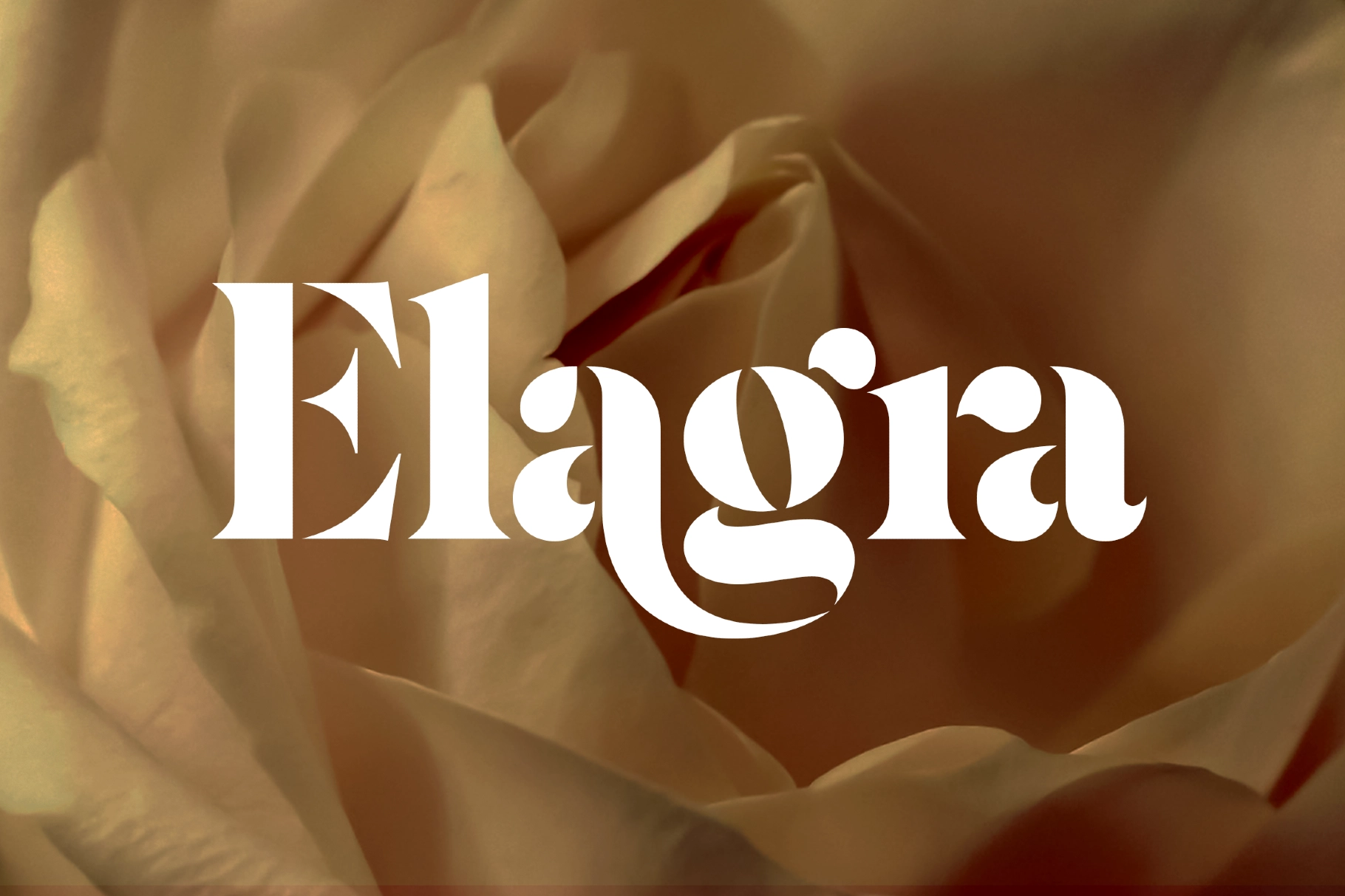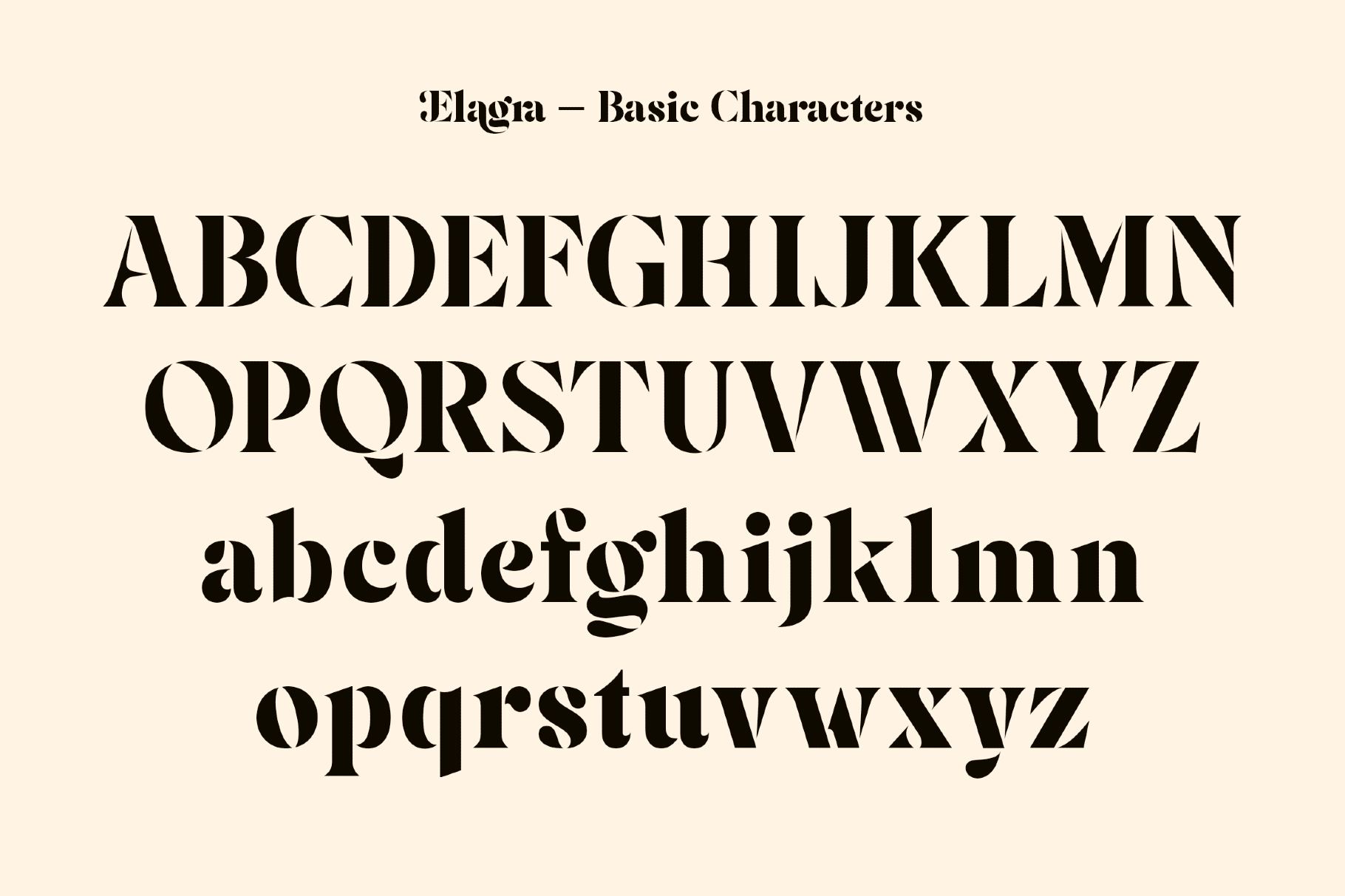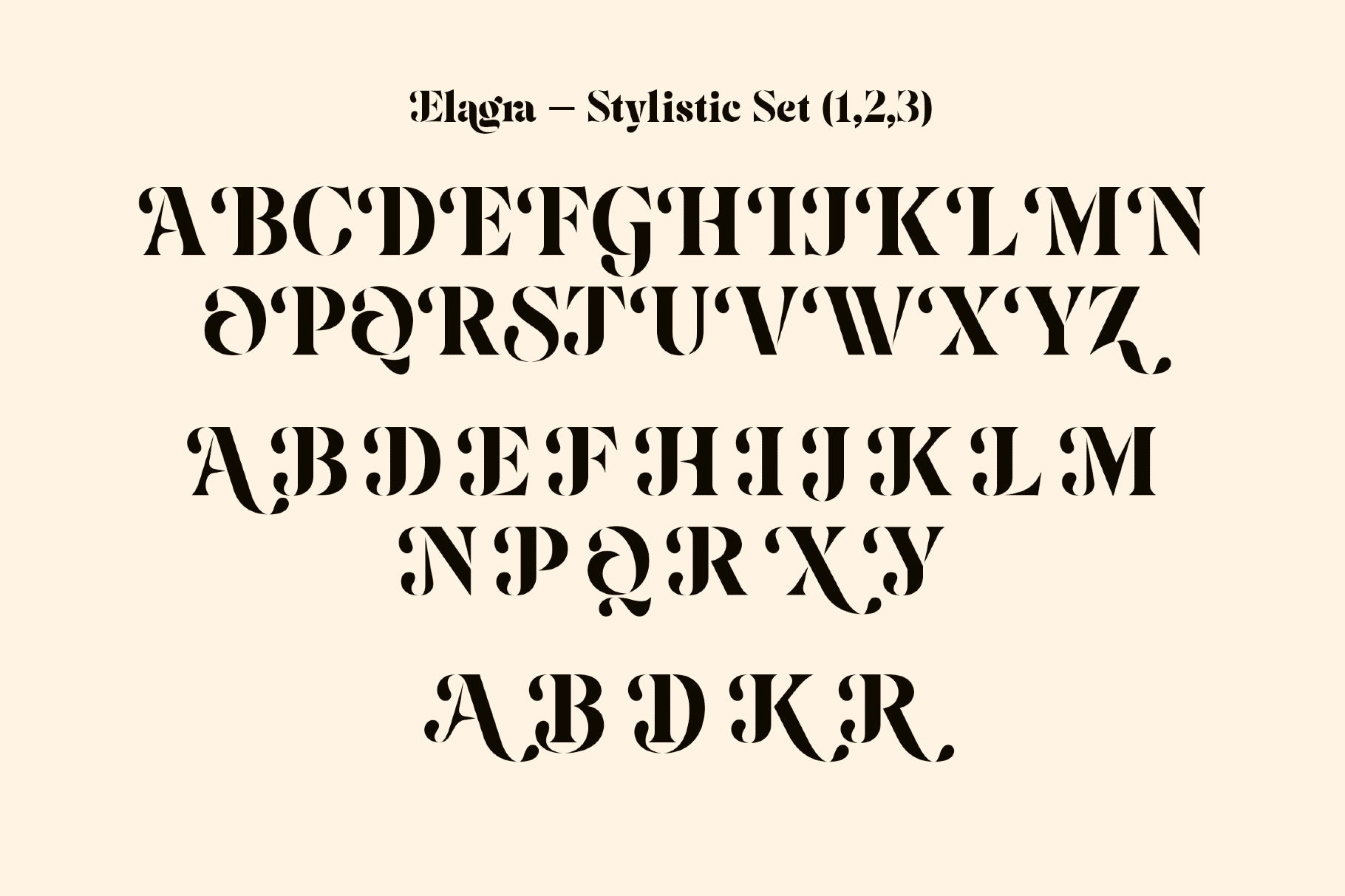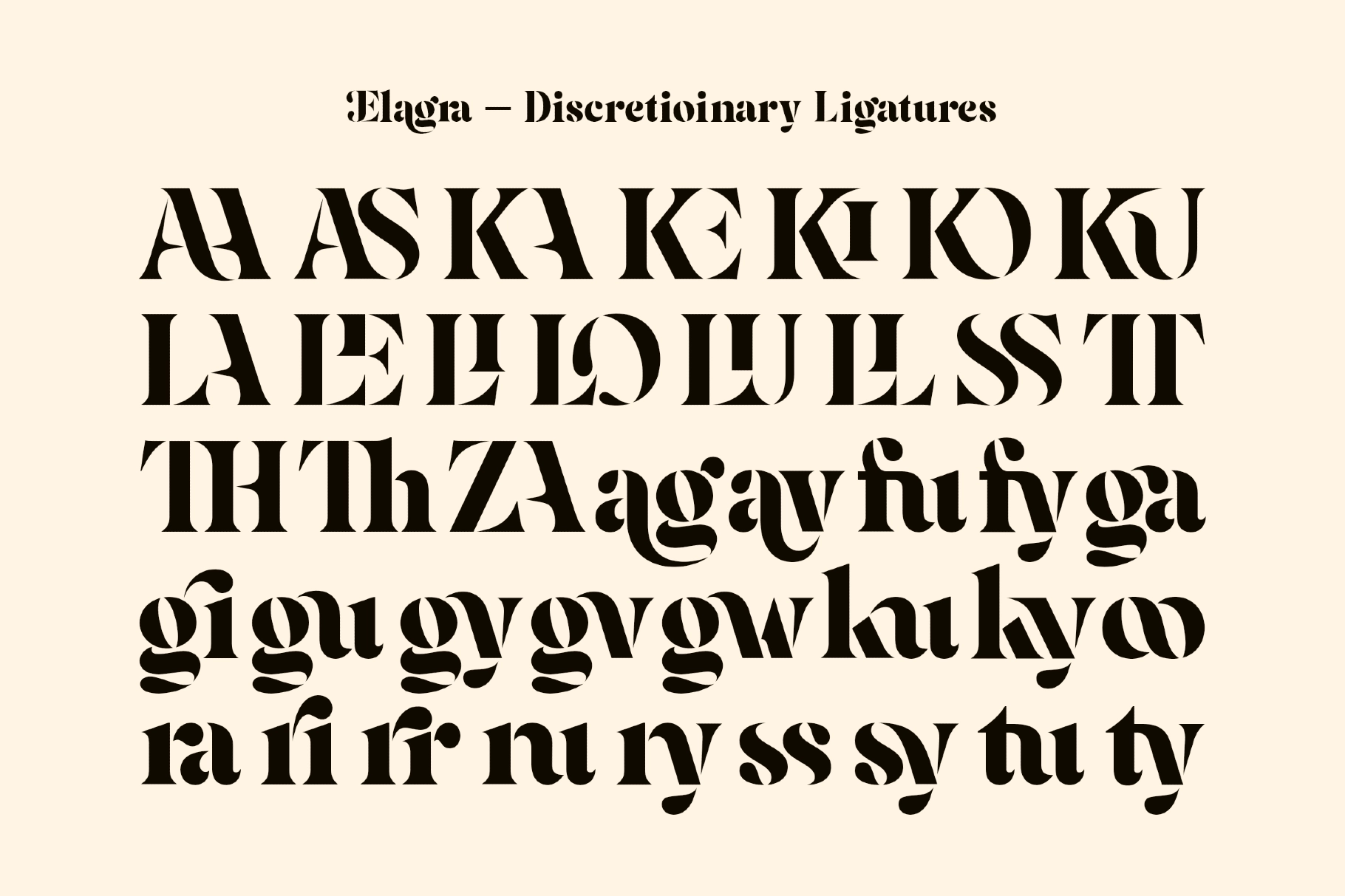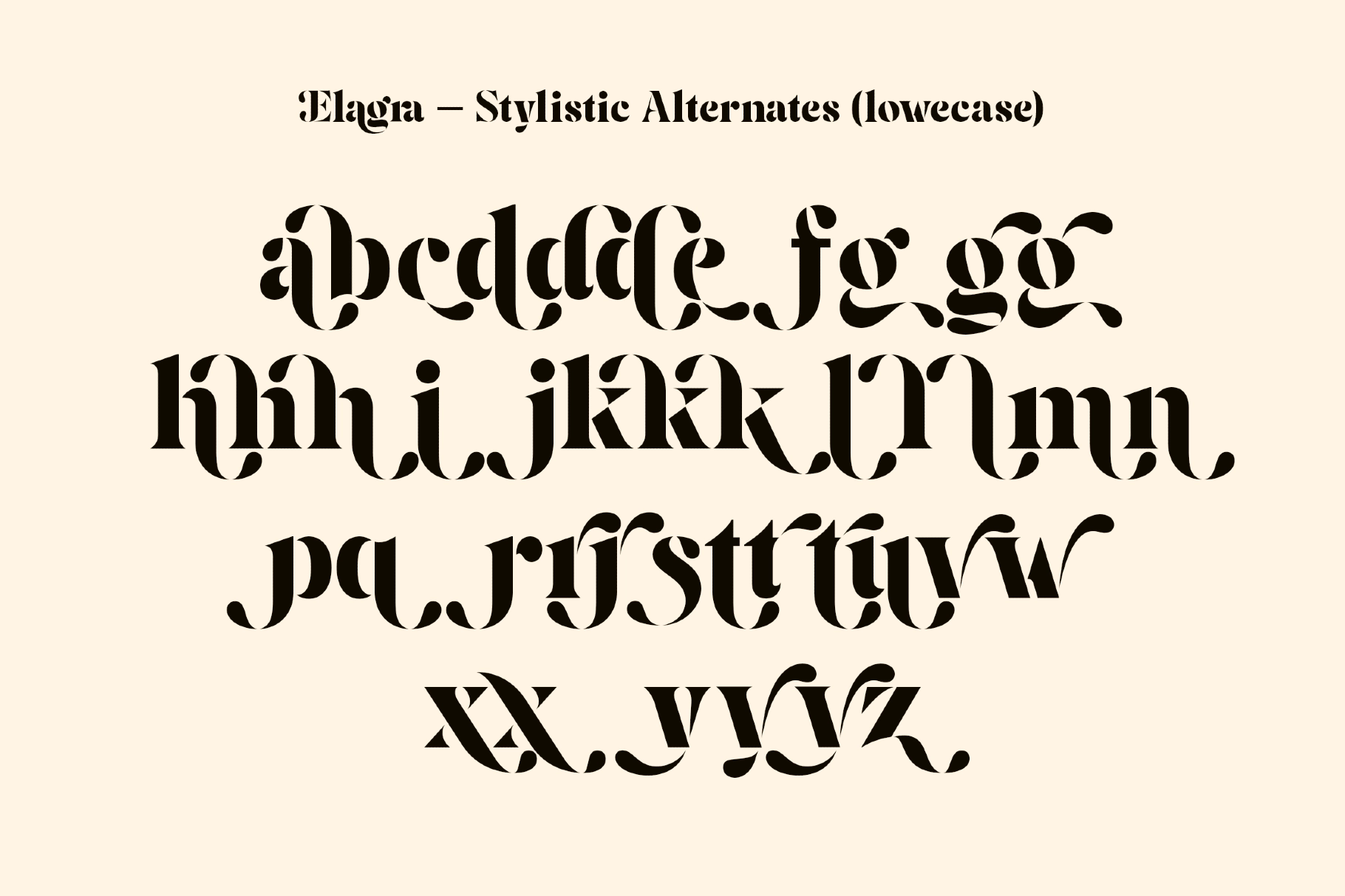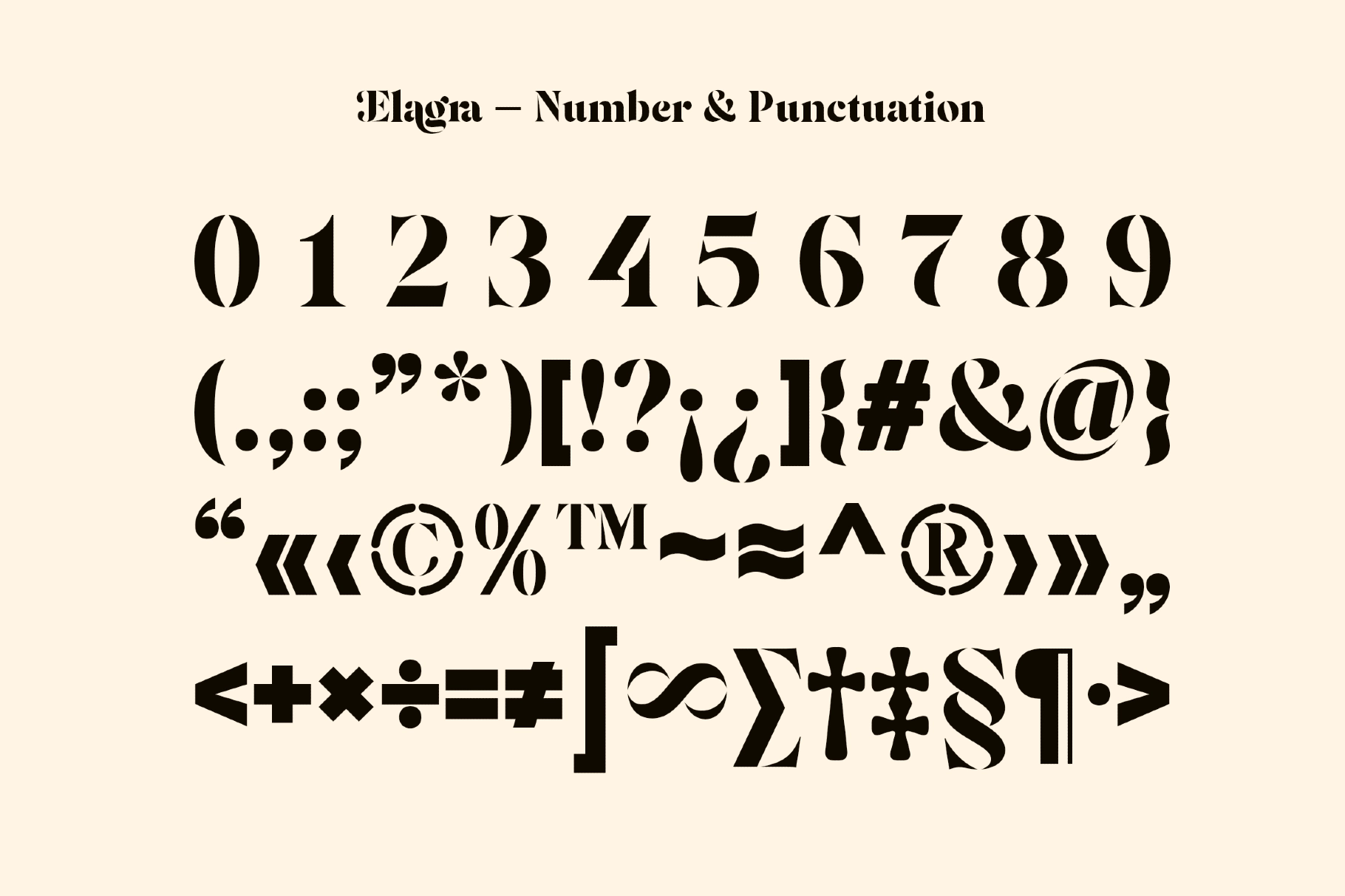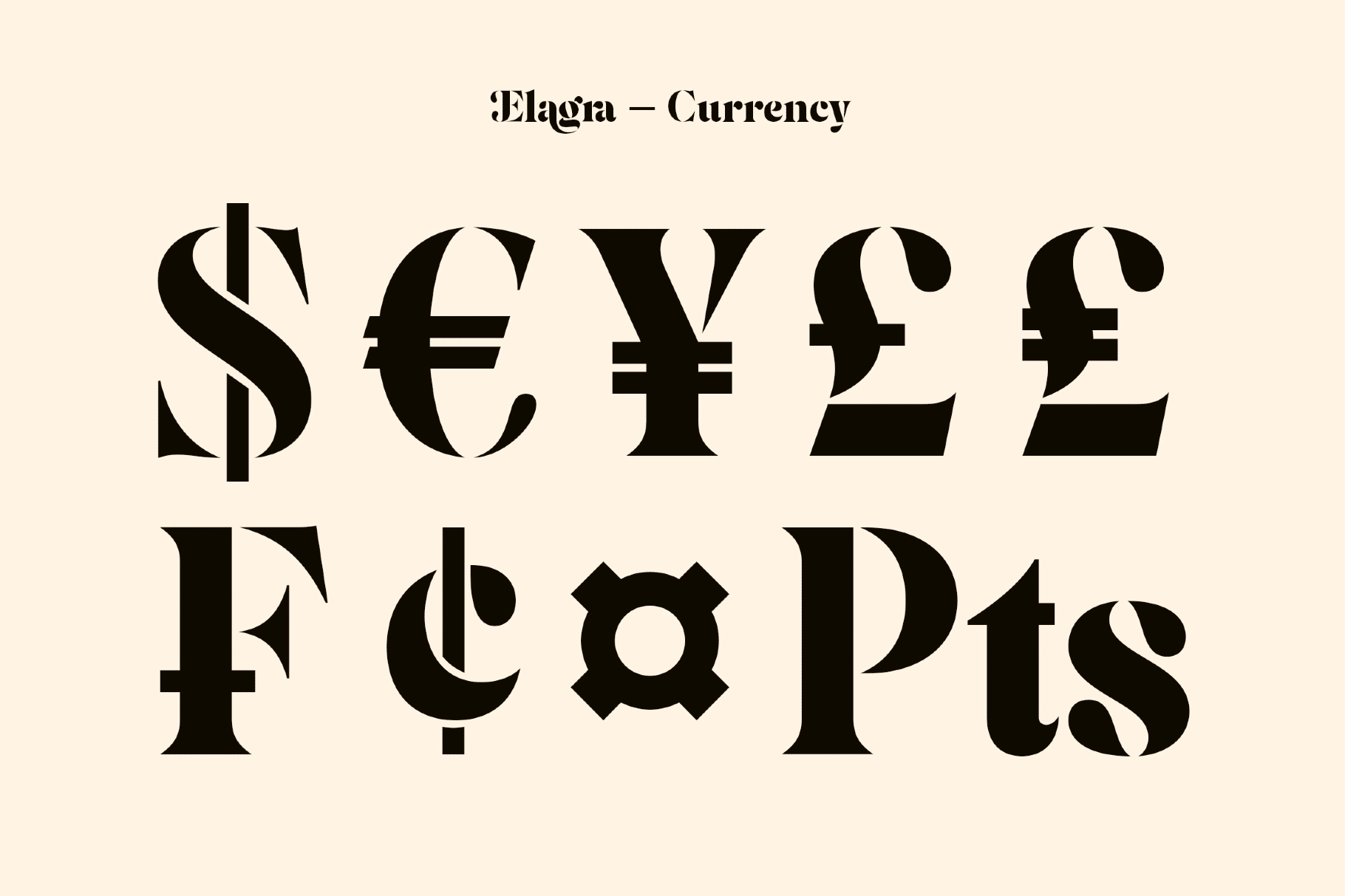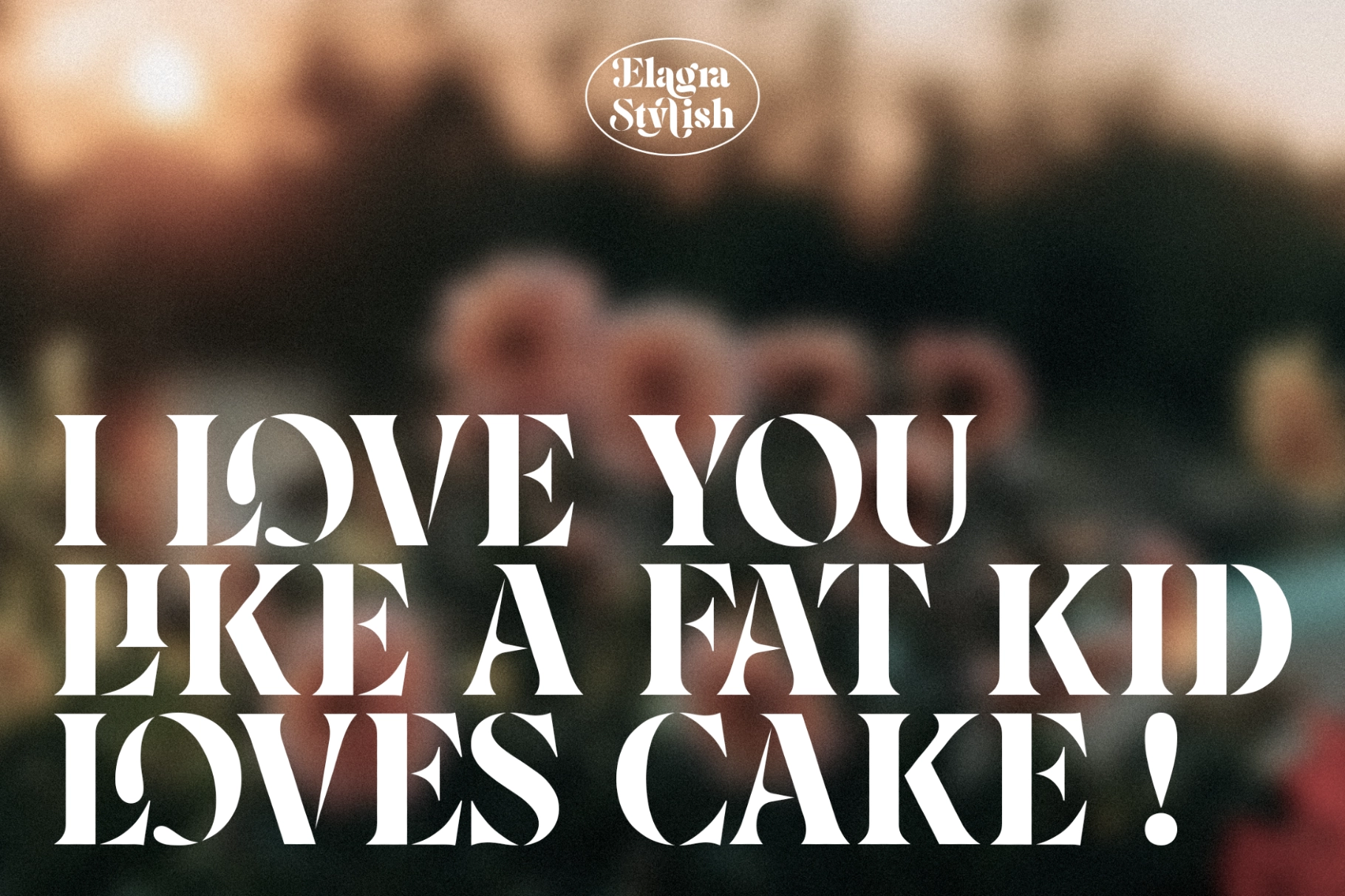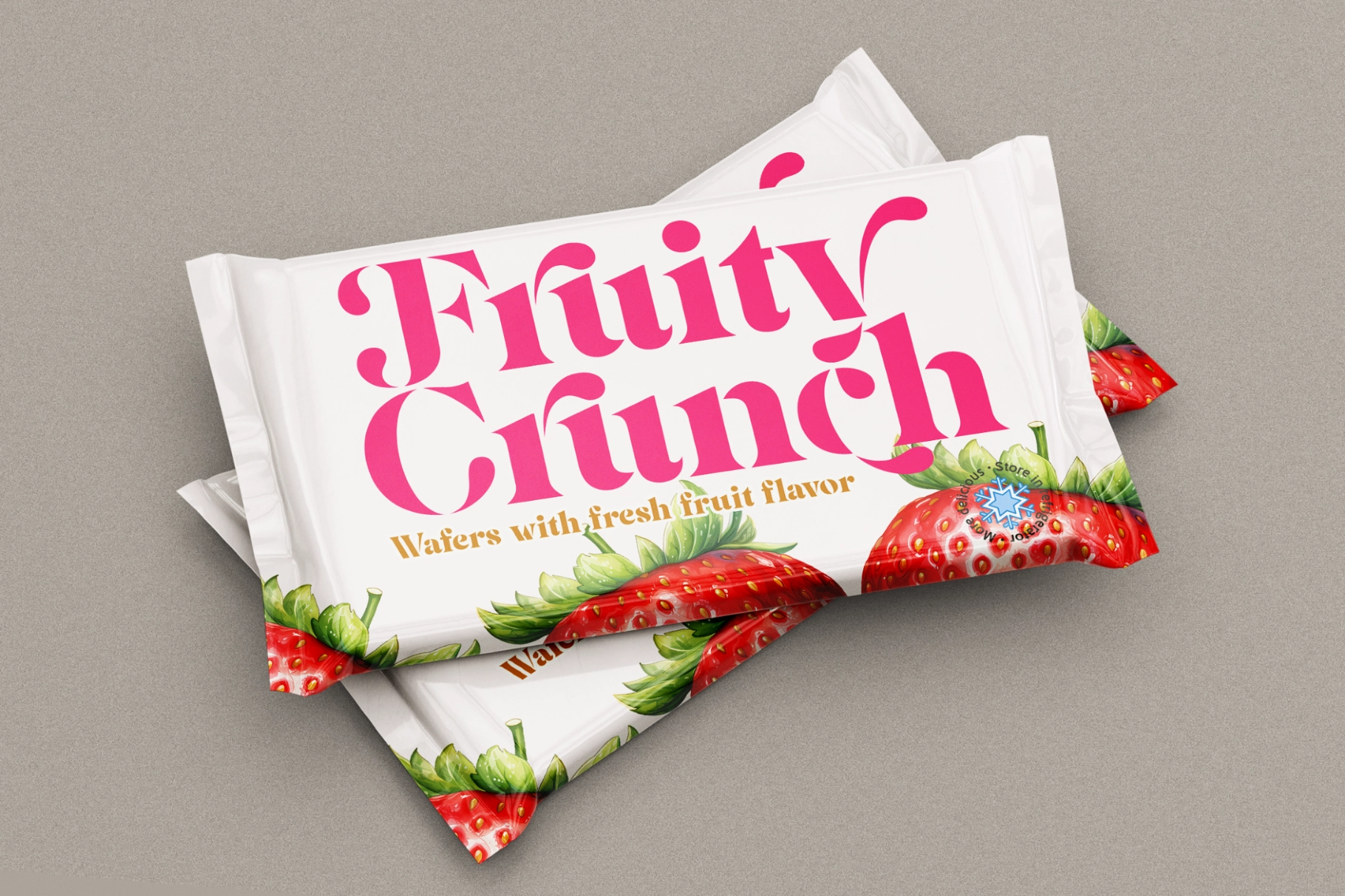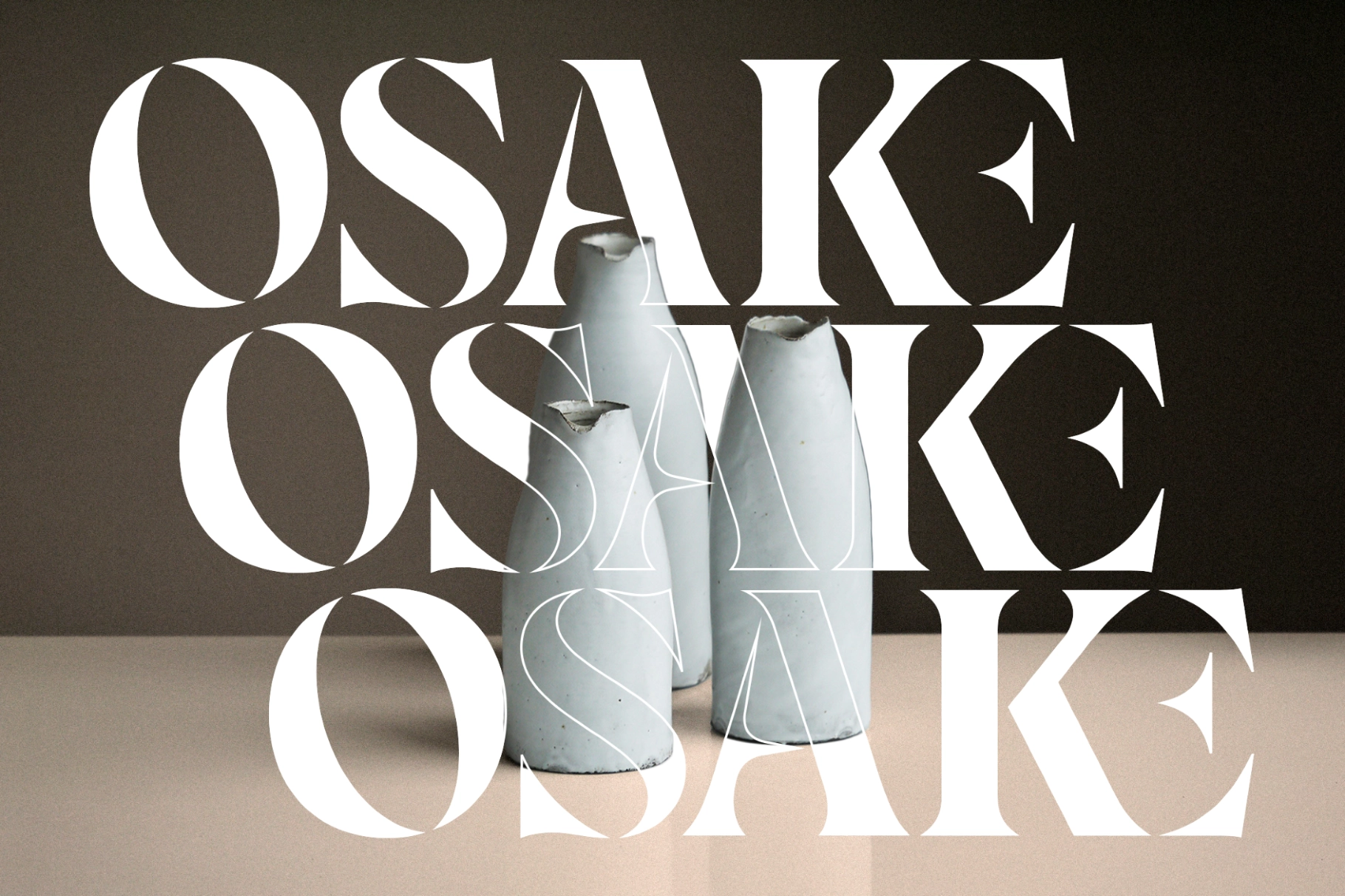
Elagra — Elegant Stencil Serif Font
Elagra
A high-contrast elegant serif with sharp stencil cuts, sculpted curves, and dramatic letterforms made for polished display typography. The style is refined, expressive, and slightly theatrical — the good kind, the kind that looks expensive before anyone checks the invoice.
Elagra works beautifully for luxury branding, boutique packaging, editorial headlines, fashion campaigns, perfume labels, jewelry logos, magazine covers, wedding stationery, art posters, restaurant identities, premium social graphics, and more. Its alternates, ligatures, and stylistic sets add room for custom-looking type, giving designers extra control over rhythm, spacing, and personality without losing the serif structure.
- Uppercase & lowercase characters
- 45+ ligatures
- 90 alternate characters
- 3 stylistic sets